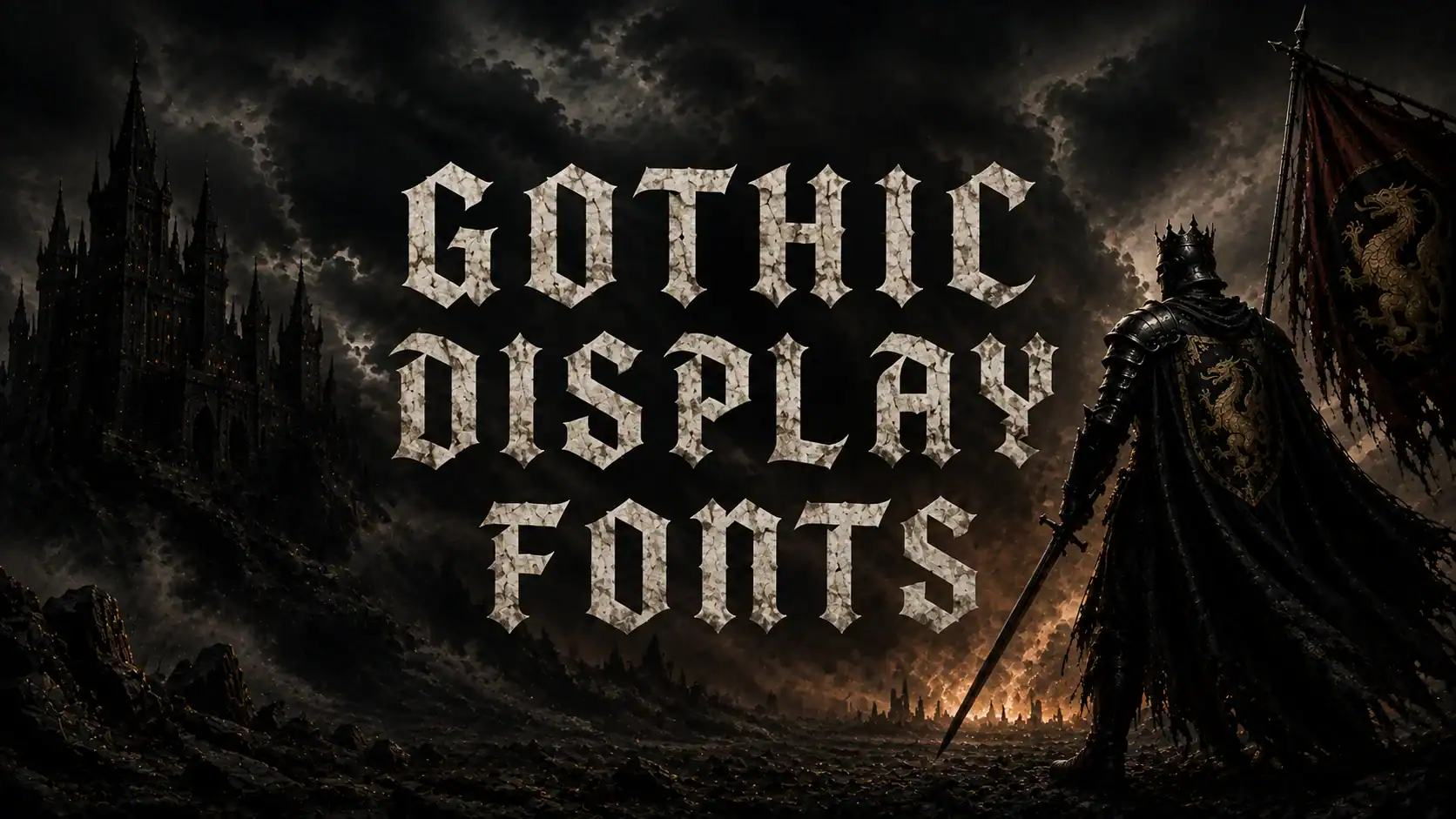
Gothic Display Fonts with Serious Dark Energy
Gothic display type has always carried more weight than a typical typeface — it borrows from cathedral architecture, medieval manuscripts, and centuries of hand-carved lettering, and that same gravity now works just as well on a metal album cover or a whiskey label. This collection brings together 31 gothic and blackletter display fonts, from stone-chiseled titles to sci-fi-flattened blackletter and a 30-font mega bundle, each built for branding, packaging, tattoo art, and fantasy or horror design rather than just decorative flourish.
Every font below comes with a direct link, a plain-language breakdown of where it actually works best, and an honest editorial take instead of recycled marketing copy. Whether you’re designing a metal band logo, a dark fantasy book cover, or a gothic wedding invitation, there’s a typeface here built for the job.
1. Turnip
Turnip is a dark gothic blackletter typeface built to look carved from weathered stone, with heavy 3D chiseled letterforms, sharp angular spurs, and rugged, aged textures that command immediate authority.
It’s built for dark fantasy book titles, metal band logos, gaming UI and key art, board game packaging, Halloween posters, and vinyl craft SVG projects — an ancient, indestructible presence in any layout.
Jules combines traditional blackletter silhouettes with tribal flame inner fills and sharp calligraphic spurs, setting typography ablaze with dramatic, fiery intensity.
It suits metal band logos, craft beer and spirits labeling, fiery apparel prints, gothic event posters, and tattoo studio branding, crowning text with fierce, unforgettable power.
Amir is a vintage Blackletter Gothic display font sculpted with sharp angular strokes, traditional calligraphic diamond terminals, and dramatic high-contrast stems for genuine ancient manuscript authority.
It’s ideal for boutique alcohol labels, tattoo artwork, gothic apparel, fantasy book titles, heavy metal album covers, and historic event stationery — timeless medieval prestige built in.
Arcane Thorn is a bold fantasy display font combining strong geometric letterforms with distinctive thorn-shaped accents, inspired by medieval kingdoms, ancient runes, and gothic aesthetics.
It’s designed for fantasy branding, RPG games, esports, movie titles, book covers, and Halloween projects, staying readable across both digital and print media despite its bold styling.
Kingswell is a bold heritage blackletter display font built with sharp angular forms, strong vertical strokes, and refined medieval-inspired details, blending Gothic tradition with modern clarity.
It works well for whiskey labels, breweries, logos, apparel, book covers, and tattoos — a handcrafted old-world aesthetic that still stays legible at display sizes.
Black Letter is an Old Script Display font inspired by classical ink calligraphy, ancient manuscripts, and vintage handwriting, featuring sharp calligraphic angles and dramatic flourishes.
Clean, smooth vector paths make it well suited to Cricut and Silhouette cutting machines, and it brings an instant dark-academia, medieval-craft aesthetic to any project.
Delta is a premium gothic calligraphy font with a complete A-Z character set, featuring sharp chiseled points, dramatic split serifs, and sweeping medieval flourishes reminiscent of a wax-seal engraving.
It’s built for alternative fashion logotypes, dark fantasy book titles, and luxury beverage labels, bringing sacred mystery and old-world craftsmanship to tattoo signage or tabletop game cards.
Ashencrest is a dark, commanding display font with tall condensed proportions, spiky sharp serifs, and dramatic gothic curves that evoke cinematic drama and medieval mystery.
It fits metal album covers, dark fantasy book titles, and Halloween event posters, delivering an unmistakable creative edge to gothic branding.
Grimvault is a captivating gothic display typeface built around dark, timeless mystery — the kind of face suited to craft beer labels, apparel branding, and tattoo studio logos.
It’s a strong choice for fantasy book covers, vintage packaging, and metal band merchandise, unleashing medieval intrigue and dark elegant character in every use.
Scraw is a professional decorative display font with a sharp, multi-line structural contour and a crisp white drop outline that stands out cleanly against complex backgrounds.
It’s built for dark fantasy book covers, medieval video game UI, and heavy metal band branding, giving vintage journal layouts and artisanal packaging genuine crown-jewel presence.
Grimvale is a bold, dramatic display font inspired by medieval manuscripts and gothic architecture, with sharp edges, elegant curves, and PUA-encoded characters for easy glyph access.
It suits premium branding, book covers, cinematic posters, and game titles, bringing timeless gothic elegance and a dark, luxurious identity to album covers and invitation cards alike.
View This Font →12. Blackdove
Blackdove is a captivatingly elegant gothic display font expressing deep blackletter influence through bold shapes and jagged edges, blending age-old mystique with cutting-edge style.
It’s built for logos, brand development, poster headlines, album art, and high-fashion branding, striking a balance between medieval charm and modern readability.
View This Font →13. Lychee
Lychee is a striking display typeface with massive, solid letterforms and rhythmic, hand-drawn “pin-and-orb” negative space details, bridging medieval blackletter structure with modern celestial minimalism.
It’s suited to artisanal food branding, experimental fashion logos, and occult-themed editorial layouts, bringing a heavy graphic weight and avant-garde personality to any project.
View This Font →14. Ajuga
Ajuga is a breathtaking ornamental Gothic typeface with a golden-toned, 3D metallic appearance, featuring sharp dramatic angles and intricate diamond-cut details on every letter.
It’s built for dark fantasy epics, luxury craft breweries, and metal brands, bringing medieval majesty and illuminated-manuscript opulence to high-end vintage packaging.
View This Font →15. Saxon
Saxon is a classic blackletter display font with sharp, chiseled edges and sweeping gothic curves that capture the authentic spirit of medieval manuscript writing.
Shipping in both OTF and TTF formats, it delivers excellent visual contrast for craft brewery branding, rock band merchandise, fantasy book titles, and historical flyers.
View This Font →16. Ravencrest
Ravencrest is a bold blackletter display typeface forged from both medieval heritage and modern rebellion, inspired by ancient manuscripts, gothic armor, and heavy metal culture.
With multilingual support and high-quality kerning in OTF and TTF formats, it fits blackletter logos, gothic branding, fantasy book covers, and video game titles alike.
View This Font →17. Gothic Graffiti
Gothic Graffiti fuses classic Gothic letterforms with raw street-art energy, using sharp angles, aggressive shapes, and a rebellious attitude for a genuinely unique blend.
It’s designed for streetwear branding, music posters, album covers, and tattoo-inspired designs, adding instant urban impact to fashion labels and underground event posters.
View This Font →18. Modern Blackletter Mega Bundle
This bundle packs 30+ blackletter, gothic, and vintage fonts into a single curated collection spanning elegant gothic lettering, medieval-inspired typefaces, and bold western and vintage display styles.
Each font included has its own distinct personality, commercial-use rights, and instant digital download, covering clothing, posters, book covers, tattoos, gaming, and packaging in one purchase.
View This Font →19. Gulling
Gulling flattens medieval nobility into a sleek, ultra-modern silhouette, drawing on royal crests and gothic architecture while maintaining rigid verticality with geometric gaps reminiscent of circuit boards.
It’s built for luxury tech startups, automotive logos, fashion houses, and cyber-fantasy film titles, bridging the gap between “once upon a time” and “light-years from now.”
View This Font →20. Gothic Cathedral
Gothic Cathedral is inspired by dramatic cathedral arches and intricate architectural detail, bringing a bold medieval gothic aesthetic to designs that want to feel dark and full of character.
It works in Cricut, Silhouette, Illustrator, and Canva, and suits logos, Halloween projects, and gothic wedding invitations with numbers, symbols, and punctuation all included.
View This Font →21. Pierce Heart
Pierce Heart marries Blackletter tradition with an aggressive, spikey display style, using massive commanding serifs and sharp angular terminals in a simplified structure for high-impact headlines.
It’s built for rock and metal band logos, tattoo artistry, and medieval or fantasy game titles, injecting raw power and gothic authority into high-contrast posters.
View This Font →22. Vanemor
Vanemor blends reversed-contrast serif structure with traditional serif and fairytale flair, drawing on modern serif typography and Art Nouveau aesthetics with star-shaped decorative details.
It suits posters, logos, badges, book covers, and magazines, bringing gothic drama together with whimsical, enchanting editorial character rather than straightforward horror.
View This Font →23. Mystic Ember
Mystic Ember is a bold typeface balancing smooth curves and sharp edges, blending modern fantasy aesthetics with medieval flair through dramatic, striking letterforms.
It’s suited to logos, posters, gaming titles, and dark-themed branding, conveying both elegance and strength with heavy strokes offset by subtle curves.
View This Font →24. Salss
Salss is a powerful display font capturing the spirit of the medieval scribe, with bold angular letterforms, rhythmic sharp terminals, and a classic Fraktur-inspired structure.
It’s built for craft brewery branding and heavy metal band logos, radiating historic prestige and heavy structural weight across gothic-themed gaming assets.
View This Font →25. Hillfin
Hillfin is a medieval gothic serif designed for genuinely good readability, with bold shapes and distinctive character details inspired by classic historical letterforms.
With ligatures, multilingual support, and full numeral and punctuation coverage, it suits logos, posters, book covers, and game titles that need to stay legible at smaller sizes.
View This Font →26. Arima Fentag
Arima Fentag is an old, fancy font with a two-part decorative letter structure, styled after genuinely old Gothic and medieval writing rather than a modern reinterpretation.
Its simple, focused concept makes it a strong pick for medieval-themed projects and classic gothic pieces that want old-fashioned decorative charm without extra embellishment.
View This Font →27. Secret History
Secret History blends a classic European gothic feel with an unexpected Arabic-influenced twist, inspired by several classic movies and games for a genuinely cross-cultural mystique.
It suits accessories and antiques branding, café and event graphics, fashion, festivals, and magic show posters, offering broad industry versatility beyond typical medieval use.
View This Font →28. Ornate Victorian Blackletter
Ornate Victorian Blackletter combines Victorian-era typography with classic Old English lettering, using sharp serifs, dramatic strokes, and decorative curls for an antique, engraved feel.
It’s built for high-end boutique branding, vintage liquor labels, and luxury invitation suites, giving gothic wedding themes and band merch a sense of prestige and class.
View This Font →29. Antifight
Antifight is a bold, powerful font tuned for hardcore music culture, blending medieval spirit with a contemporary edge through strong angular strokes and dramatic letterforms.
It’s built for music merchandise, band logos, game titles, esports branding, horror posters, and streetwear, capturing underground culture with a clean, modern structure.
View This Font →30. Smooth Variation
Smooth Variation is a bold blackletter-inspired display font without the heavy jagged edges, using elongated sharp strokes and simplified geometry for a cleaner, more polished look.
It suits sports apparel, esports logos, and high-performance packaging, echoing the look of modern automotive or high-tech athletic branding rather than medieval history.
View This Font →31. Blackletter and Serif
Blackletter and Serif fuses dramatic blackletter with timeless serif elegance, using thick strokes, sharp edges, and confident letterforms for high-impact typography at large sizes.
It’s built for logo design, posters, book covers, and album artwork, suiting gothic-themed visuals and clothing labels that want vintage, luxury, or streetwear versatility.
View This Font →Conclusion
This collection leans dark on purpose, but “dark” covers more ground than horror alone — Vanemor’s fairytale flourishes and Gothic Cathedral’s wedding-ready elegance sit in the same list as Rusty Gore-style aggression and Antifight’s hardcore-music edge. Rather than picking the first blackletter font that looks the part, match the specific mood your project needs: luxury and prestige, cinematic drama, underground rebellion, or historical authenticity all read differently even within the same broad gothic category.